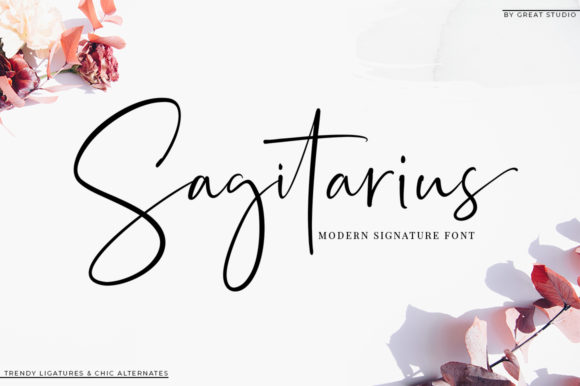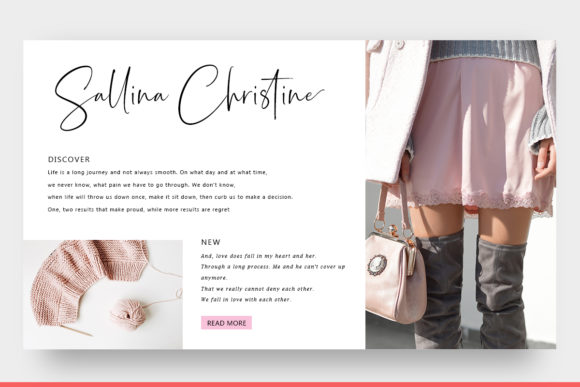
Sagitarius Font
About Sagitarius Font
Introducing The Sagitarius, a uniquely crafted script font with an elegant and modern style that sets it apart, giving it a distinctive signature flair. This font goes beyond the ordinary, as its luxurious style makes it a perfect choice for designs that demand an upscale and chic aesthetic.
The Sagitarius font is designed to embody a sense of sophistication and modern elegance. Its unique script style adds a personal touch, making it perfect for projects that require a signature look. Whether you’re working on branding, invitations, editorial design, or any project that needs a touch of refinement, The Sagitarius stands out with its luxurious appeal.
The versatility of The Sagitarius shines through in its ability to elevate various designs. Its elegant and modern style makes it a natural fit for upscale and chic branding projects, where a distinctive and luxurious font is crucial for creating a strong visual identity.
For invitations, The Sagitarius adds a touch of sophistication, setting the tone for upscale events. Editorial designs benefit from its modern elegance, creating a harmonious balance between style and readability. The font’s signature style makes it perfect for adding a personalized touch to a wide range of creative endeavors.
In conclusion, The Sagitarius is more than just a font; it’s a luxurious design asset that brings an elegant and modern signature style to your projects. Whether you’re working on branding, invitations, or other designs that require an upscale and chic aesthetic, embrace the sophistication of The Sagitarius and let it elevate your creative endeavors to new heights.